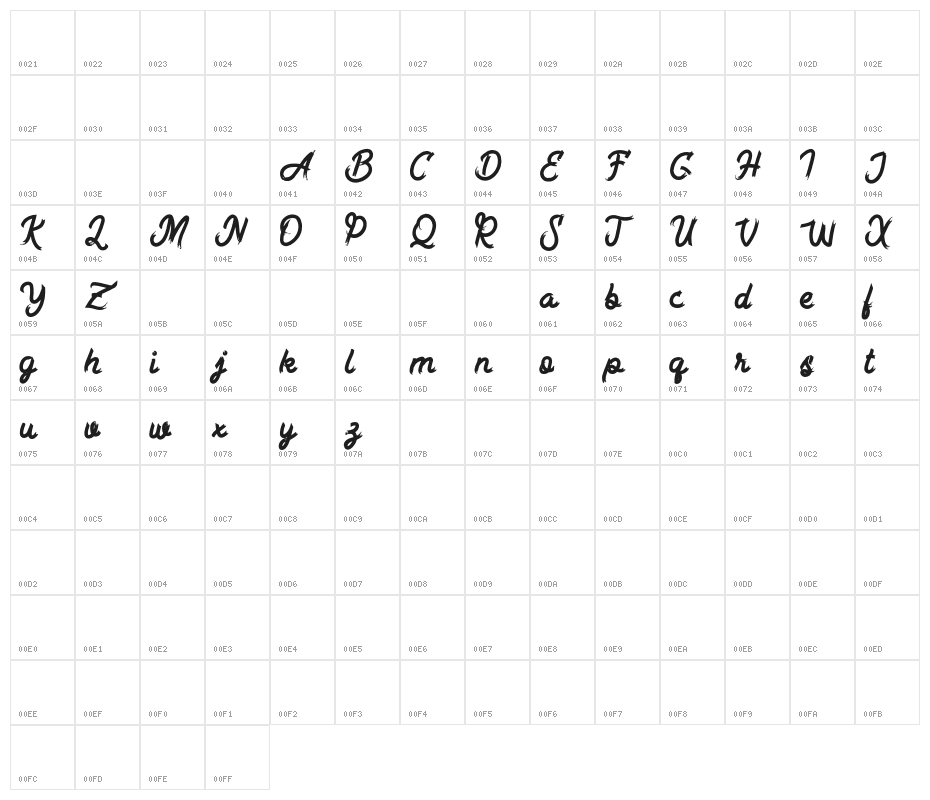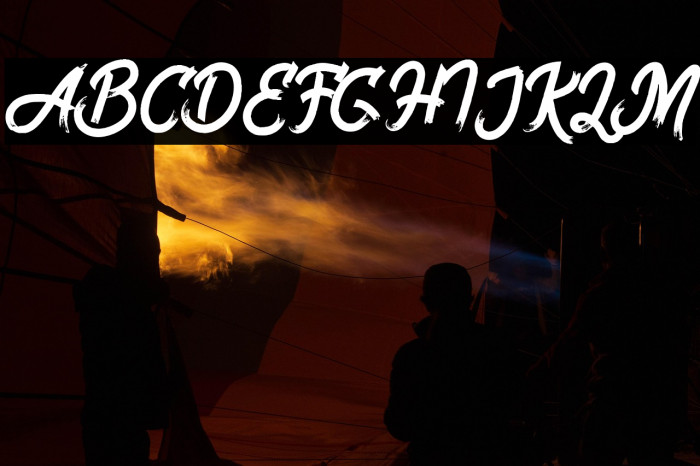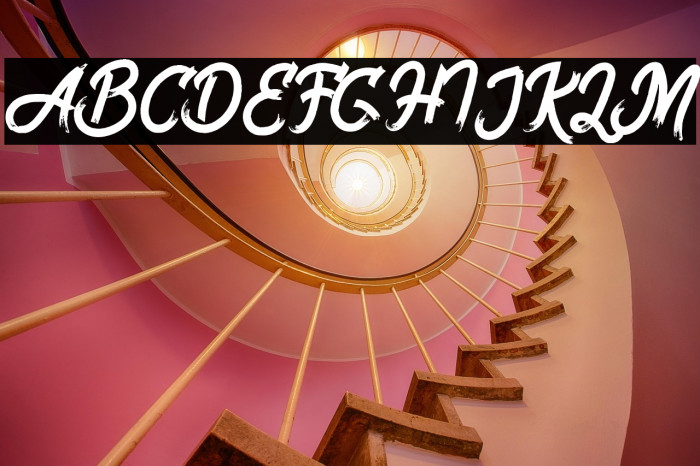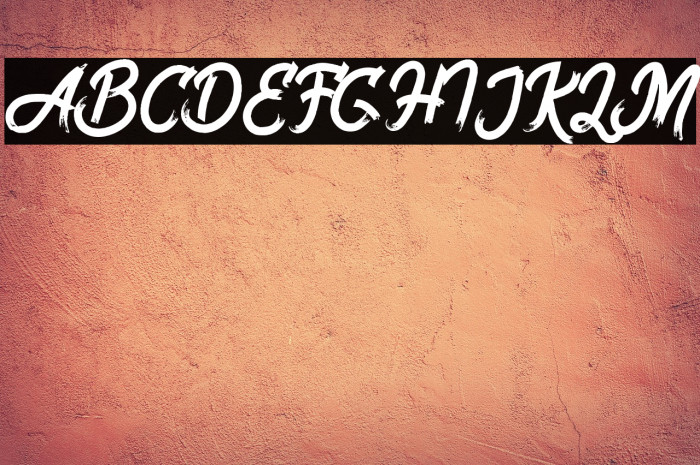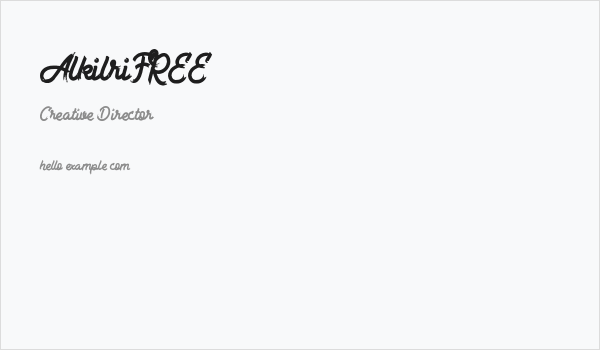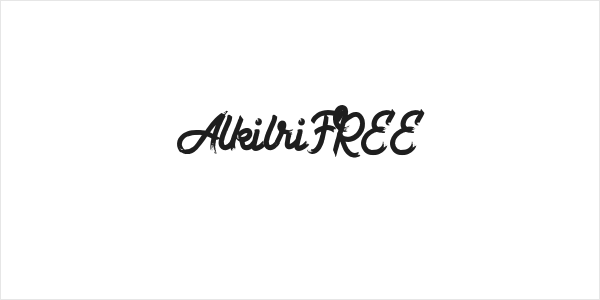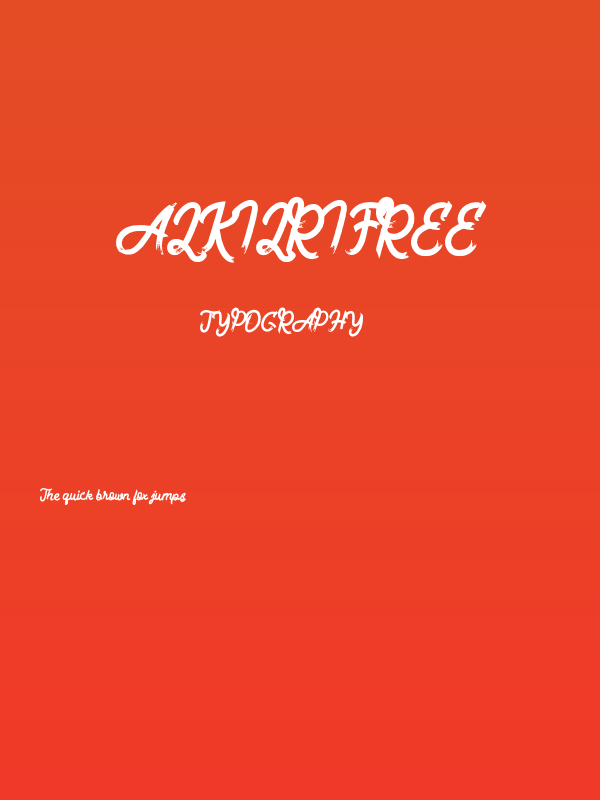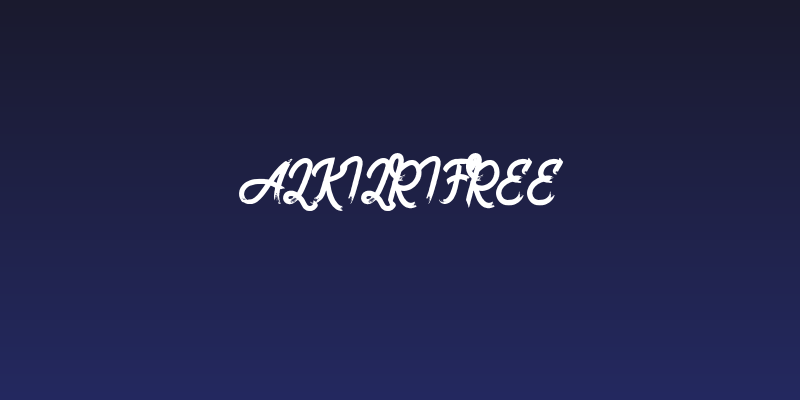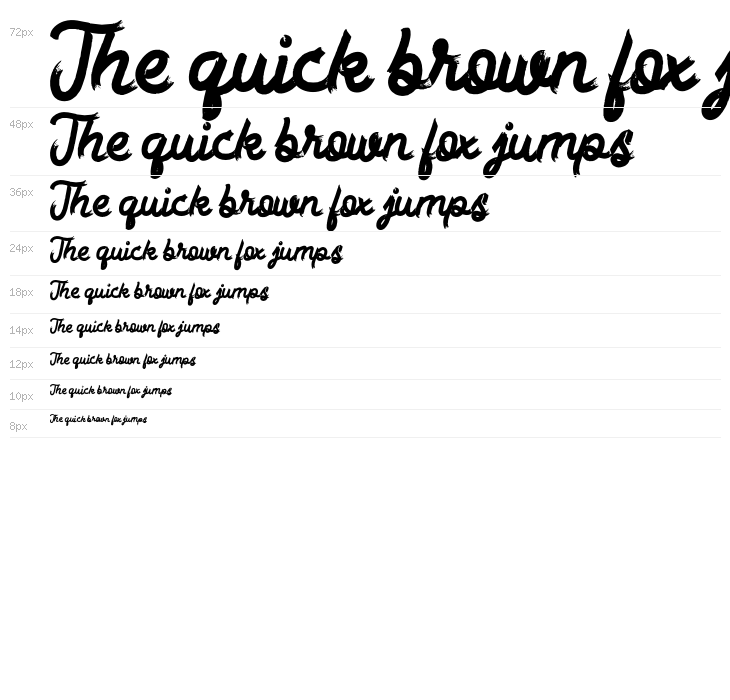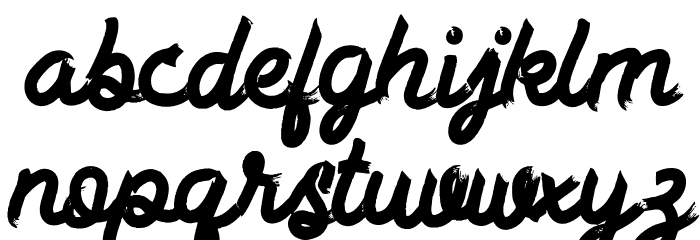
AlkilriFREE Font
AlkilriFREE Description
This font features a bold and expressive brush script style, characterized by its dynamic and fluid strokes. The letters are interconnected, giving a sense of continuity and flow, reminiscent of hand-painted signage. The uppercase letters are slightly more formal, while the lowercase letters exhibit a playful and casual demeanor. The strokes vary in thickness, adding a sense of movement and energy to the text. This font is ideal for projects that require a personal touch or an artistic flair, such as invitations, posters, or branding materials.